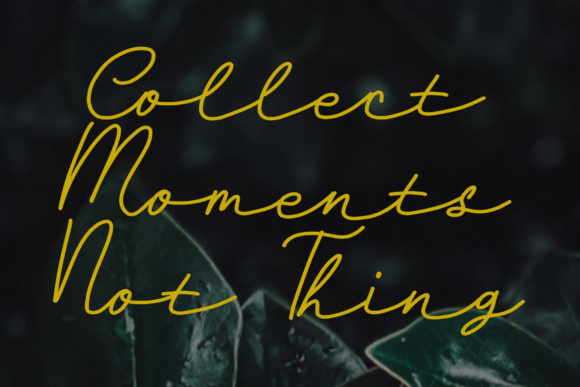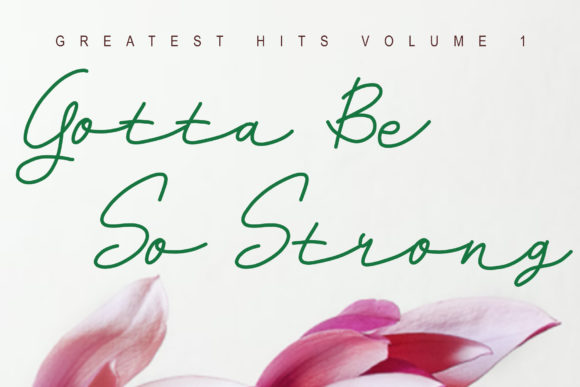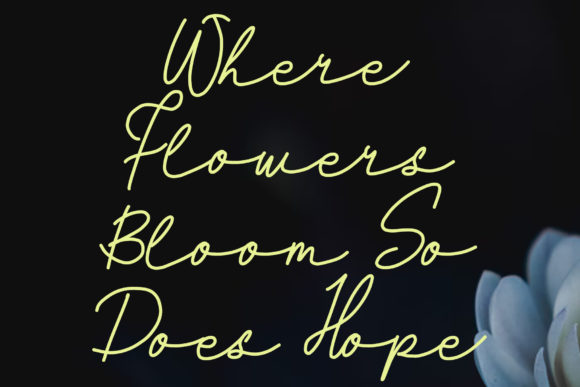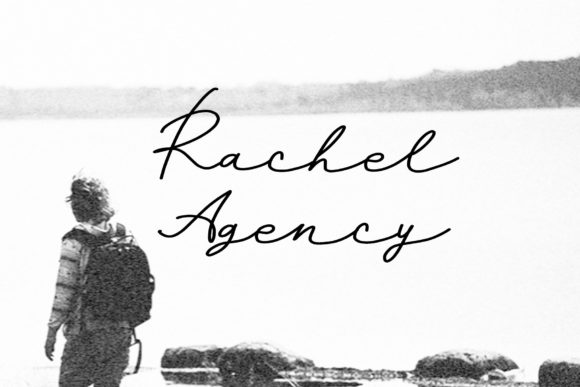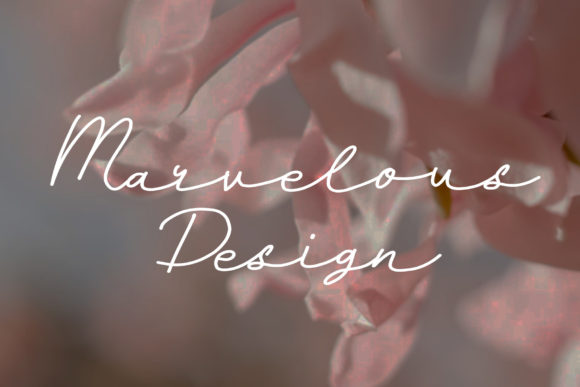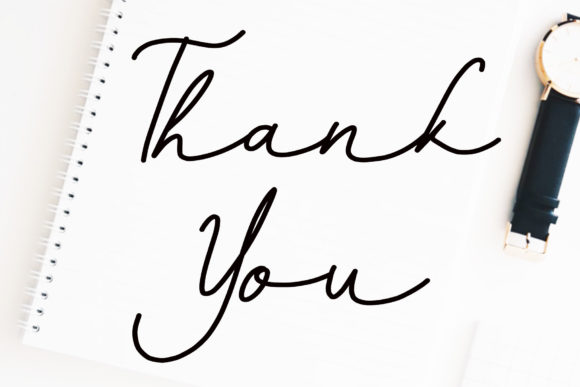
Introducing Andalusia Font: The Perfect Choice for Creative Projects
Are you a designer, craftsperson, or simply someone who appreciates beautiful typography? Look no further than the Andalusia Font, a stunning simple handwritten font that’s perfect for creating eye-catching logos, branding, and quotes. With its balanced and varied design, Andalusia Font is sure to enhance the beauty of your ideas and take your creative projects to the next level.
Handwritten fonts have a unique charm that can add a personal touch to any design project. They evoke a sense of warmth, friendliness, and approachability, making them perfect for brands that want to connect with their audience on a more intimate level. Andalusia Font is no exception, with its elegant and flowing script that exudes a sense of sophistication and style.
What Makes Andalusia Font Special?
So, what sets Andalusia Font apart from other handwritten fonts on the market? Here are just a few reasons why designers and crafters are falling in love with this beautiful font:
- Balanced Design: Andalusia Font has a perfectly balanced design that ensures your text is easy to read and visually appealing. The letters are proportionate, and the spacing is just right, making it perfect for use in logos, branding, and quotes.
- Varied Style: This font offers a range of variations that allow you to add your own personal touch to your designs. Whether you want to create a bold statement or a more subtle impression, Andalusia Font has got you covered.
- Elegant and Versatile: Andalusia Font is incredibly versatile and can be used in a wide range of design projects, from logos and branding to quotes, posters, and more. Its elegant design ensures that it will fit in perfectly with any style or theme.
Why Choose Andalusia Font?
With so many fonts to choose from, why should you choose Andalusia Font for your next design project? Here are just a few compelling reasons:
- Easy to Read: Andalusia Font is incredibly easy to read, even at small sizes. This makes it perfect for use in body text, as well as headlines and titles.
- Unique and Memorable: With its elegant and flowing script, Andalusia Font is sure to make your designs stand out from the crowd. Its unique style ensures that your brand will be remembered long after people have seen it.
- Time-Saving: With Andalusia Font, you can create stunning designs in no time. Its versatility and range of variations mean that you can experiment with different styles and effects without having to start from scratch.
How to Use Andalusia Font
Andalusia Font is incredibly easy to use, even if you’re new to design or typography. Here are a few tips to get you started:
- Pair it with Other Fonts: Andalusia Font pairs perfectly with other fonts, from bold and chunky to elegant and refined. Experiment with different combinations to find the perfect look for your design.
- Experiment with Colors: Andalusia Font looks stunning in a range of colors, from bold and bright to soft and pastel. Try out different colors to find the one that works best for your design.
- Use it for Quotes and Headlines: Andalusia Font is perfect for use in quotes and headlines, where its elegant and flowing script can really shine.
In conclusion, Andalusia Font is a stunning simple handwritten font that’s perfect for designers, craftspersons, and anyone who appreciates beautiful typography. With its balanced and varied design, elegant and flowing script, and versatility, Andalusia Font is sure to enhance the beauty of your ideas and take your creative projects to the next level. So why wait? Try Andalusia Font today and see the difference it can make!